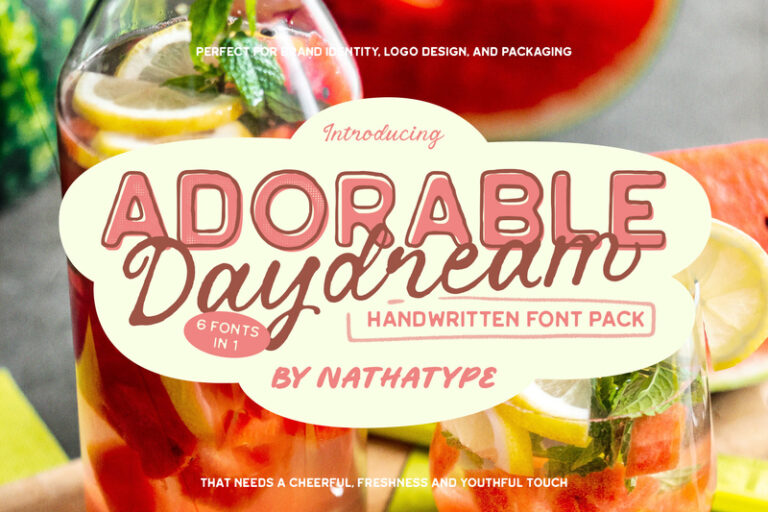
Adorable Daydream is a charming handwritten font pack designed to bring a playful and cute vibe to your projects. This versatile collection includes six unique styles: Sans Regular, Sans Halftone, Sans Outline, Sans Blurred, Brush, and Script. Perfect for your work. Adorable Daydream lets you mix and match styles to create fun, eye-catching designs with ease. In addition, enjoy the features here.
- Ligatures
- Stylistic Sets
- Multilingual Supports
- Numerals and Punctuations
Adorable Daydream fits in branding, packaging, quotes, logos, posters, and many more designs. Find out more ways to use this font by taking a look at the font preview.